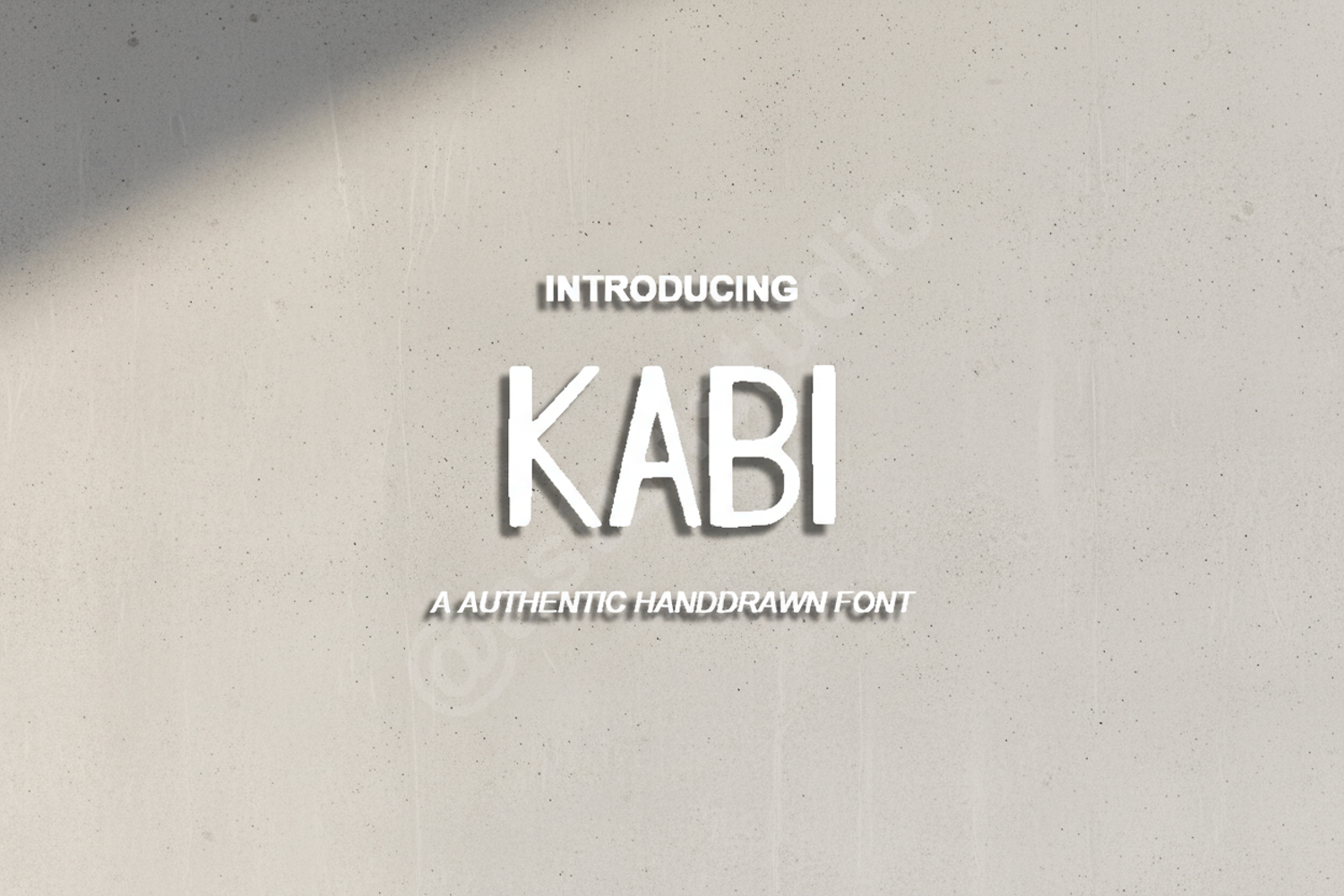
Kabi | Elegant Modern Sans Serif
Kabi
Kabi is a premium modern sans-serif font that strikes a perfect balance between geometric precision and minimalist elegance. Designed for creators who demand clarity and sophistication, Kabi provides a versatile solution for high-end design projects. Its clean lines and balanced proportions ensure that your message is delivered with professional authority and a contemporary aesthetic.
- Branding and Identity: Create memorable logos, business cards, and corporate stationery.
- Editorial Design: Perfect for magazine headers, sleek layouts, and modern book covers.
- Digital Marketing: Optimized for high-impact social media graphics and website headers.
- Wedding Stationery: Ideal for minimalist invitations, menu cards, and seating charts.
- Product Packaging: Enhance luxury labels and high-end retail packaging with clean typography.